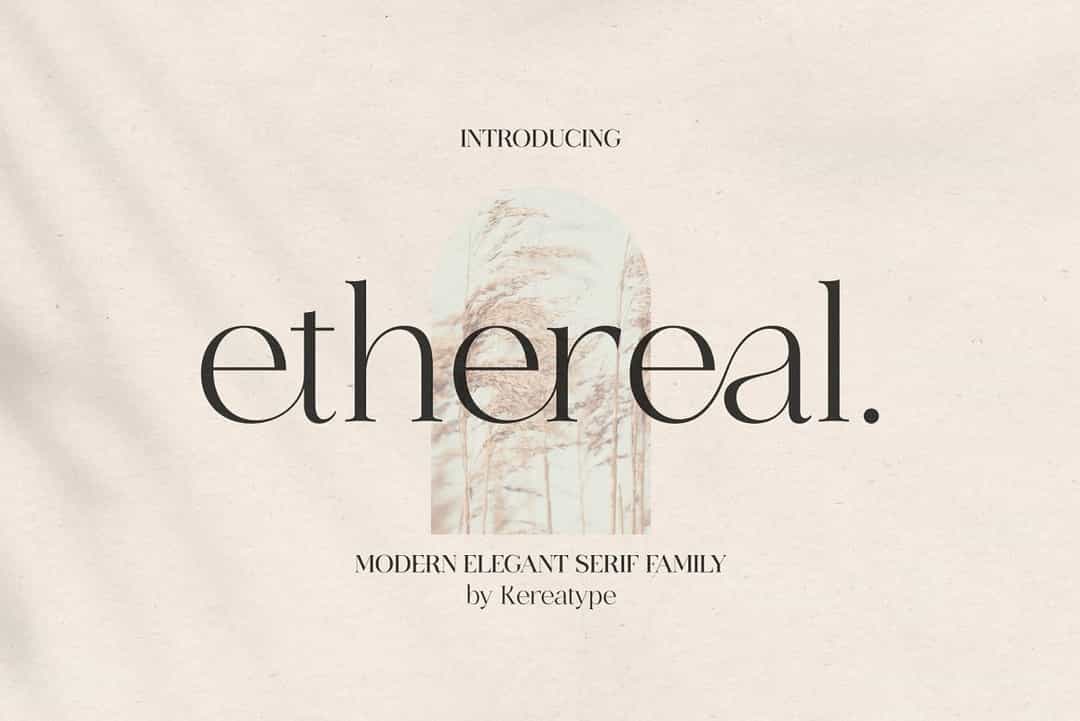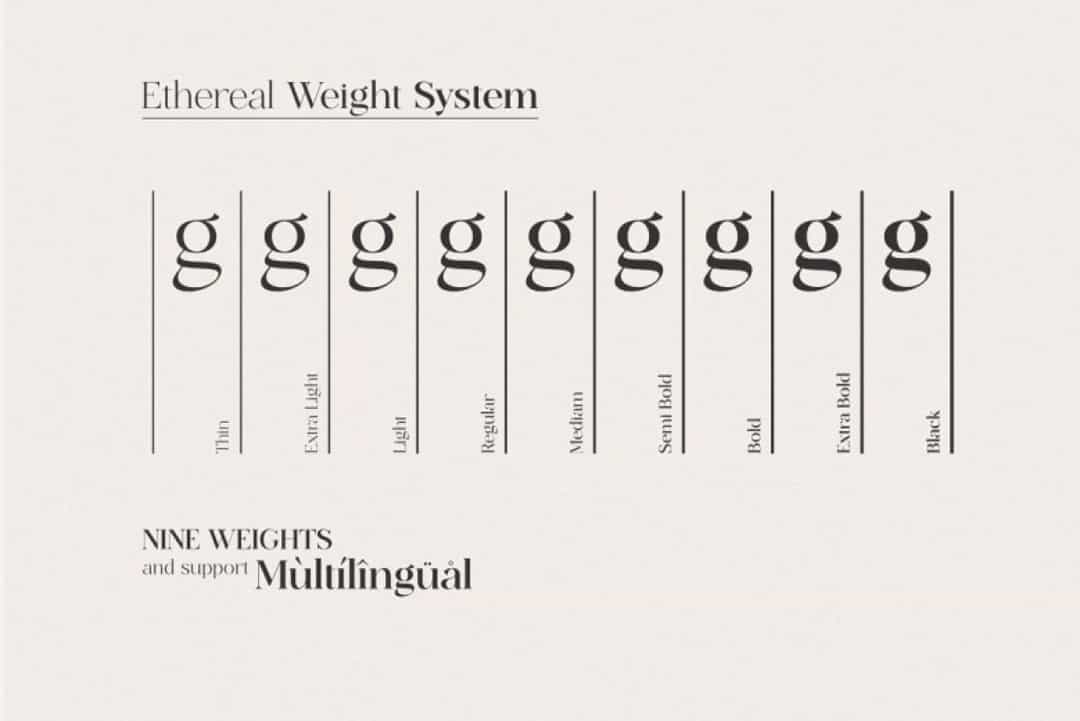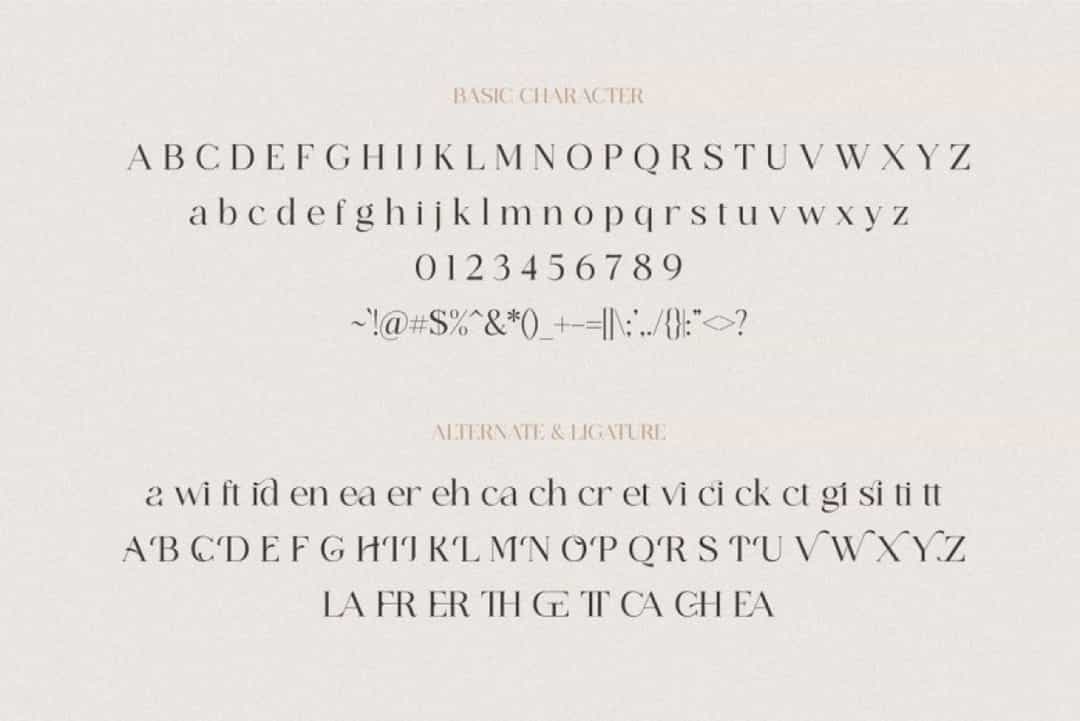
We are pleased to introduce the “Ethereal” serif font with different weights. This stylish font offers elegance, modernity and chic features – making it perfect for logos and branding applications! Using this font you will achieve elegant sophisticated and definitely unique logos!